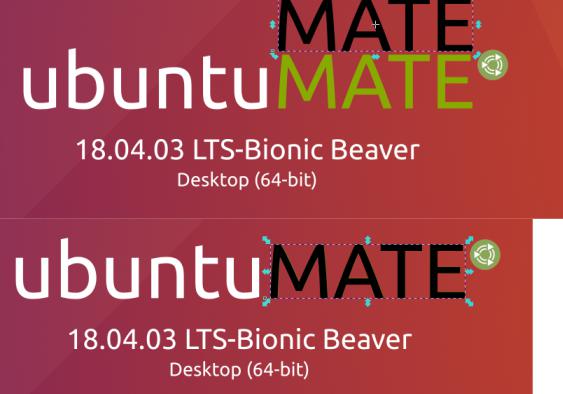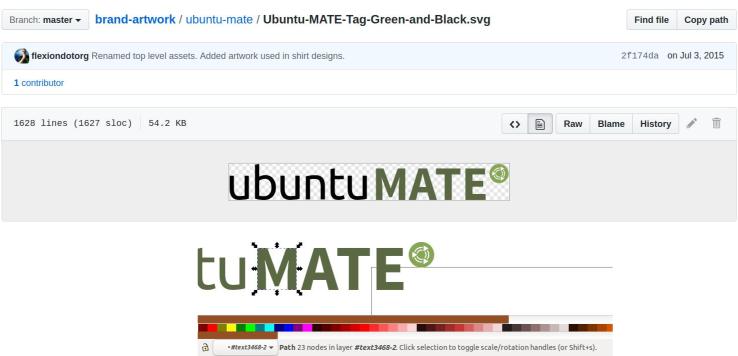
Been looking at the artwork docs for the word 'Mate' and wondering what font is used. Officially it states 'Ubuntu' uppercase but when I try that in inkscape the font is nothing like the one being currently used. I found a close match which is noto sans.
Any idea what the dev team are currently using and maybe someone can update the artwork documentation
For me it is Ubuntu Normal. Use the Ubuntu MATE image with disk shape on both my DVD direct print and DVD Jewel Case. Am using Inkscape 1.0 but did try in .92. In picture Typed MATE in Ubuntu Normal and sized using CTRL key.
Overlaid on my existing files and it matched perfectly. Am using 19.10 MATE at present.
The image you show is not what is used on the main Ubuntu Mate website so I am a little baffled here. If you look at the logo and also download their icons pack from github you will see the word 'Mate' is in bold and looks to be a different font from the Ubnuntu font. . . I'll just keep looking I'll get it eventually. Thanks again
Sorry, please disregard. You are correct. Did mine long time ago (16.04) and either didn't catch the difference of font or at time was different. Searched logo and the word MATE has different M than that in the Ubuntu Font. Also checked Ubuntu Font at https://design.ubuntu.com/font/ and it shows the M I am using in my image. Do not have a backup of earlier versions. Don't know how to get documentation updated but someone with that knowlege may reply. Further checking at https://github.com/ubuntu-mate/brand-artwork/blob/master/ubuntu-mate/Ubuntu-MATE-Tag-Green-and-Black.svg when I download and open in Inkscape the MATE does show as text but am unable to do anything with it.